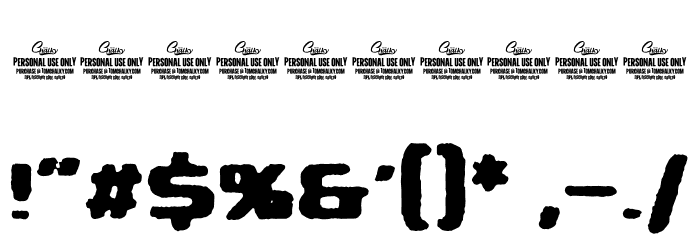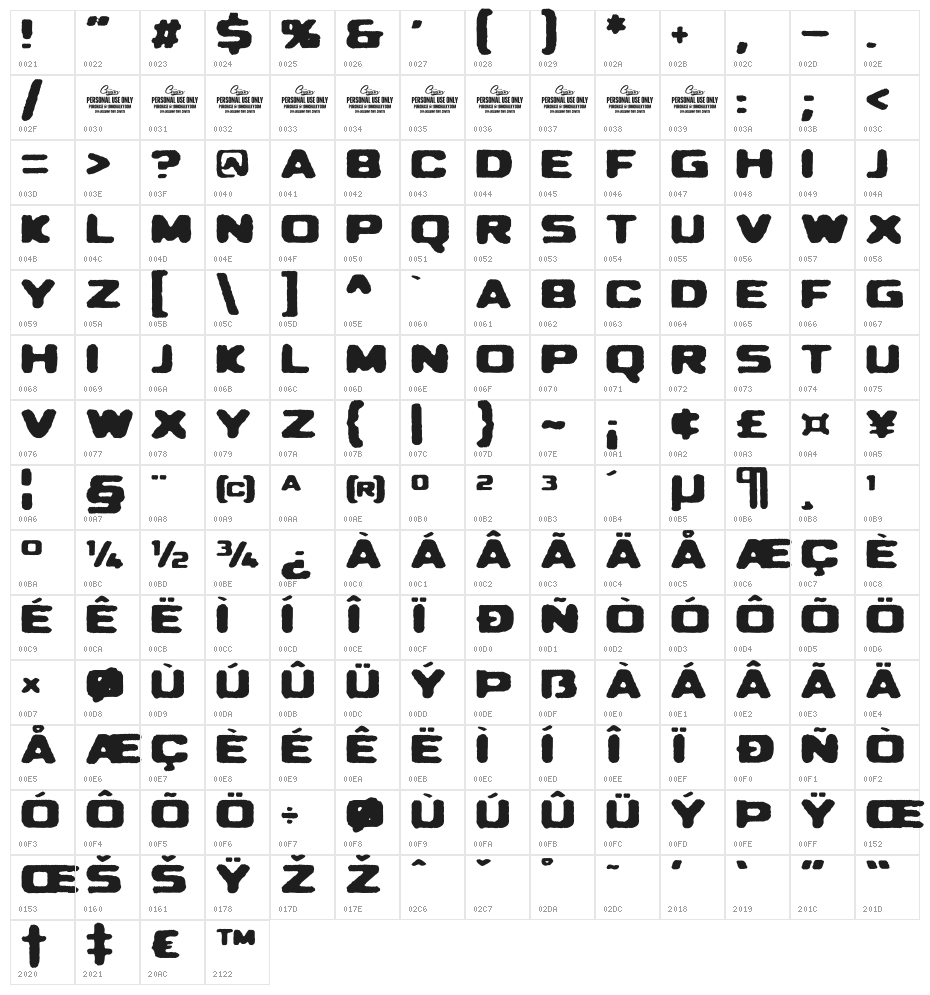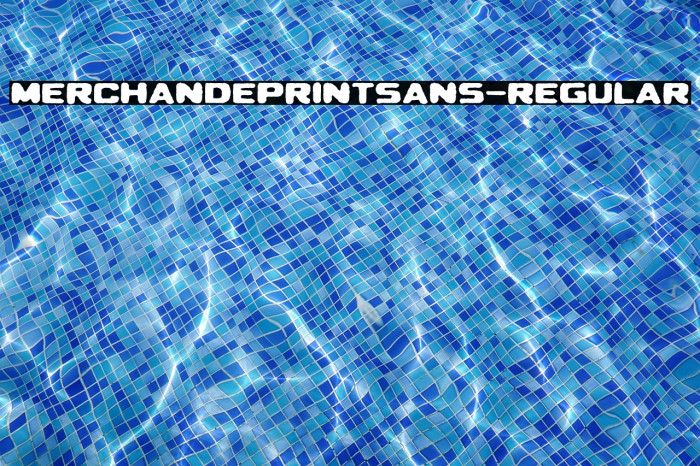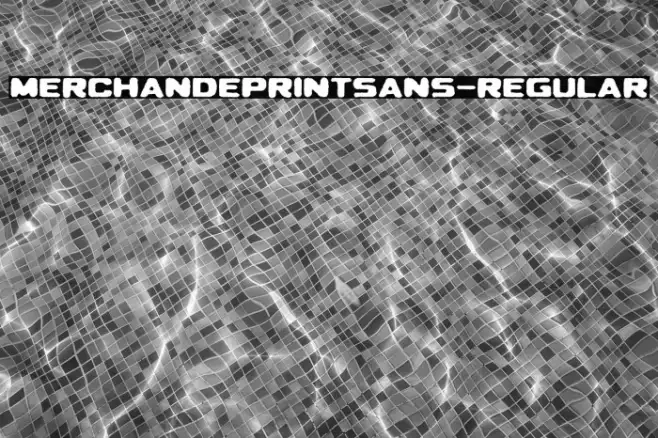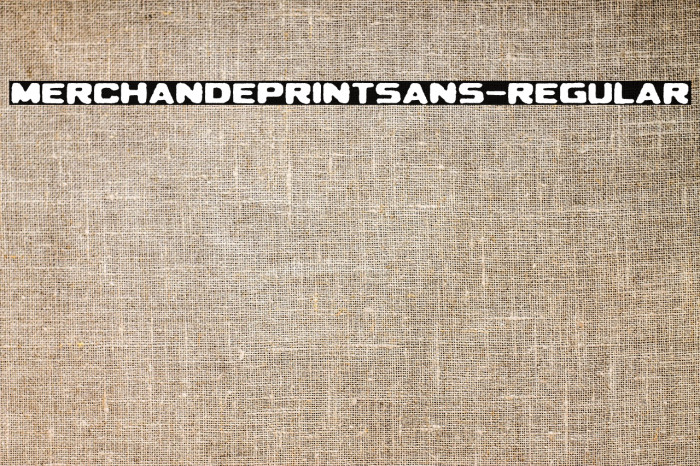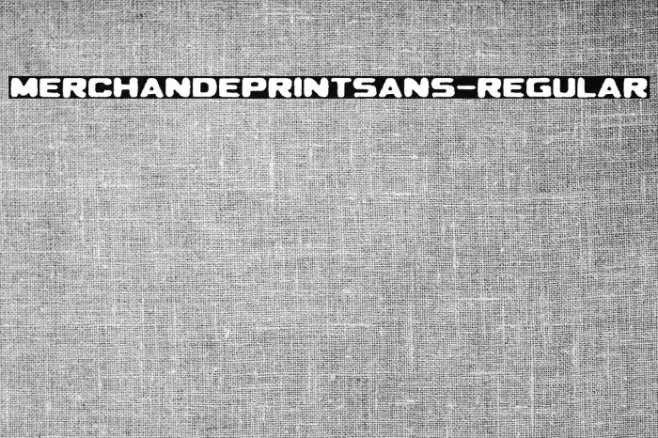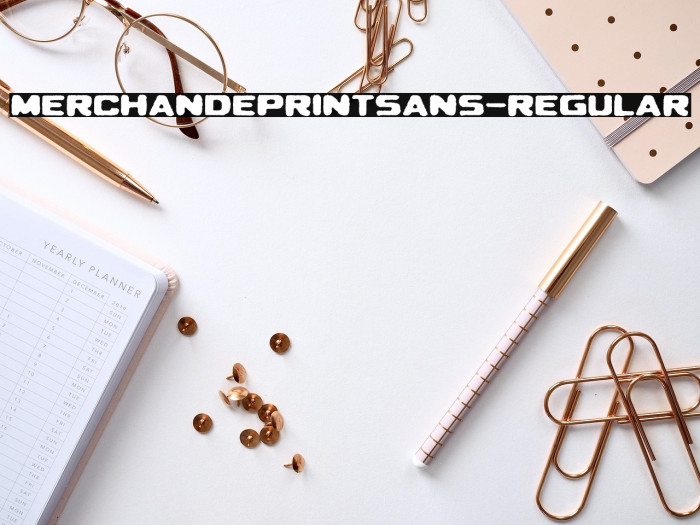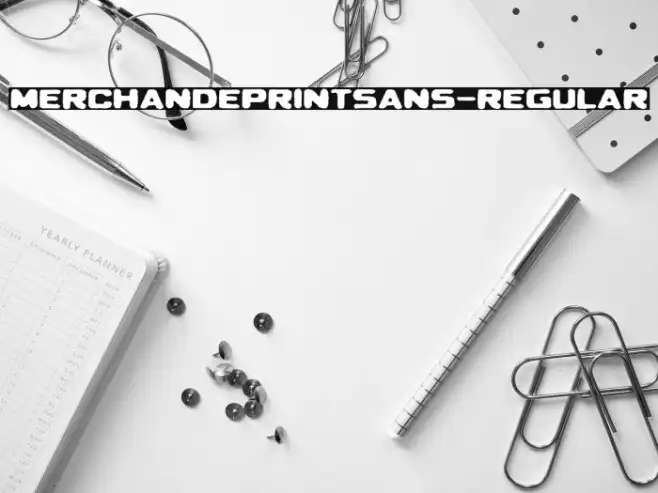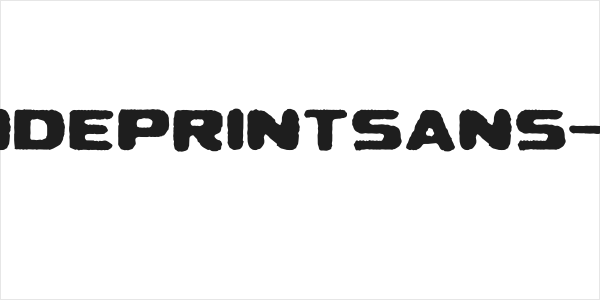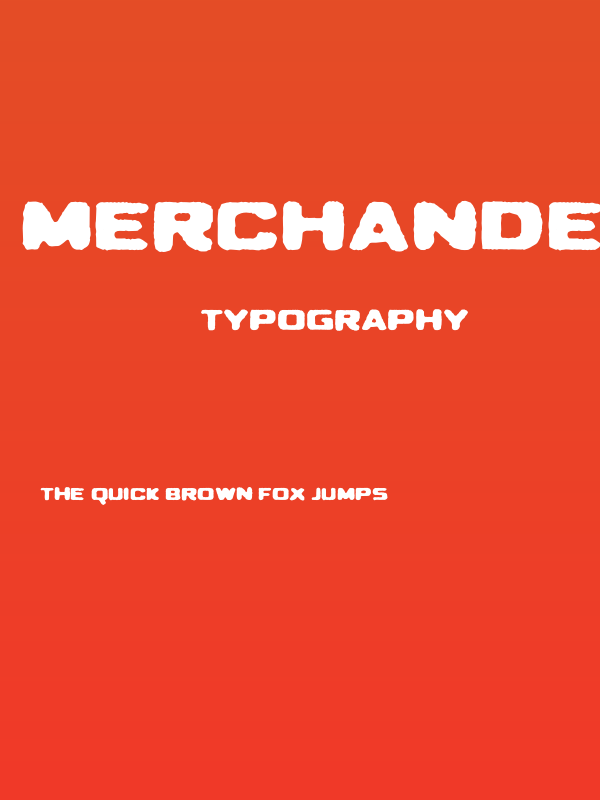
MerchandePrintSans-Regular Font
MerchandePrintSans-Regular Description
This font features a bold and rugged appearance with a distressed texture, giving it a vintage and industrial feel. The characters are thick and blocky, with rounded edges that soften the overall look. The uppercase and lowercase letters maintain a consistent style, while the numerals and special characters complement the alphabet with the same bold and textured design. This font's unique style makes it stand out, ideal for projects that require a strong and impactful visual presence.
Overall StyleVintage, Industrial
Use CaseLogos, Posters, Apparel Design
Proposed ProjectsIdeal for branding, posters, apparel design, and any project requiring a bold, vintage aesthetic.